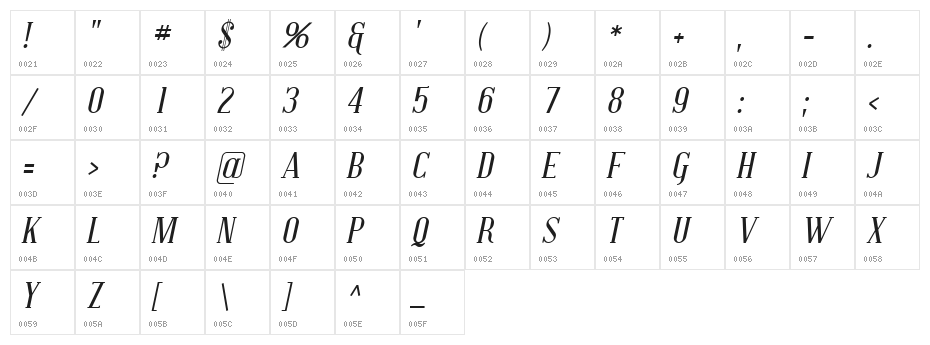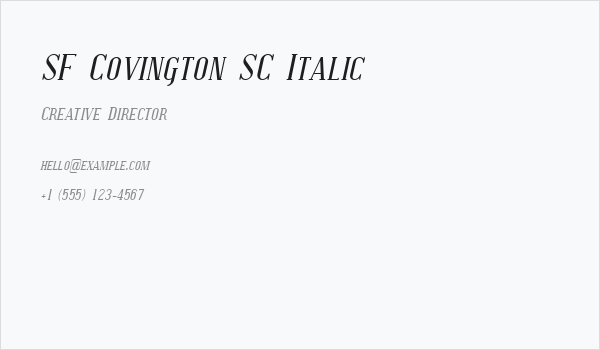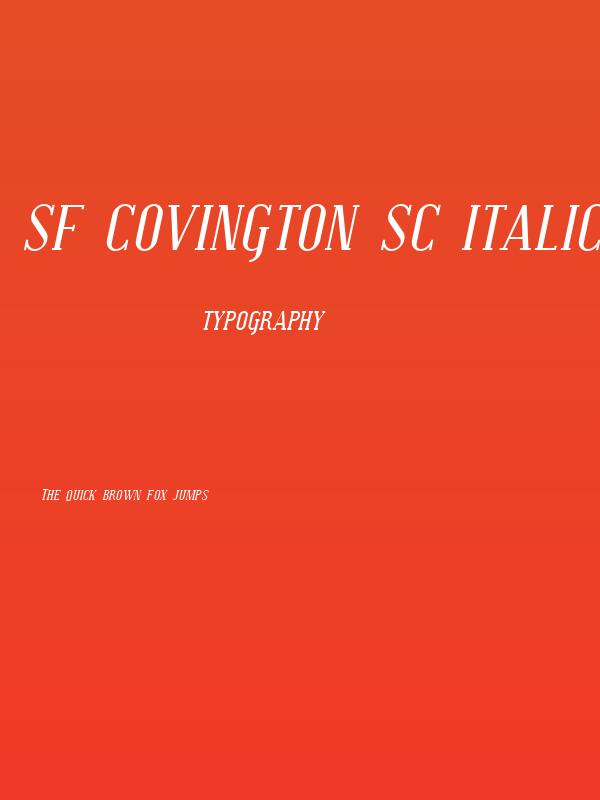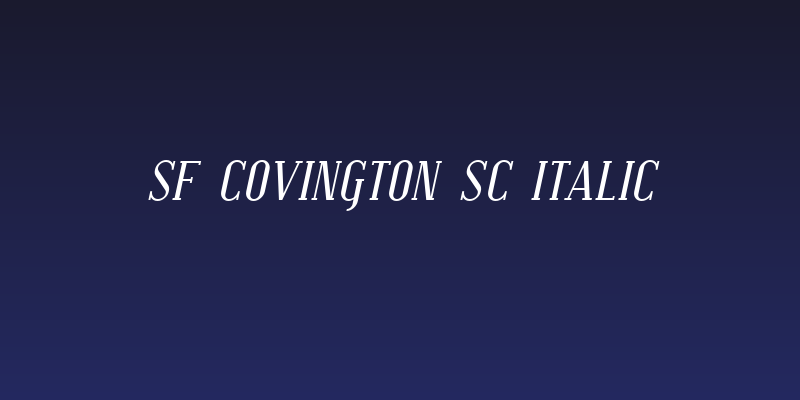
SF Covington SC Italic Font
SF Covington SC Italic Description
This font features a sophisticated and elegant design with a distinct italic slant, giving it a dynamic and fluid appearance. The characters are well-proportioned, with a classic serif style that adds a touch of formality and tradition. The uppercase letters are tall and commanding, while the lowercase letters maintain a consistent flow. The numerals are clear and easy to read, complementing the overall aesthetic. Special characters are thoughtfully designed, maintaining the font's cohesive look. This font is suitable for projects that require a refined and professional touch.
| Use Case | Headlines, Logos, Editorial design |
| Proposed Projects | Ideal for use in luxury branding, editorial design, invitations, and high-end product packaging. |